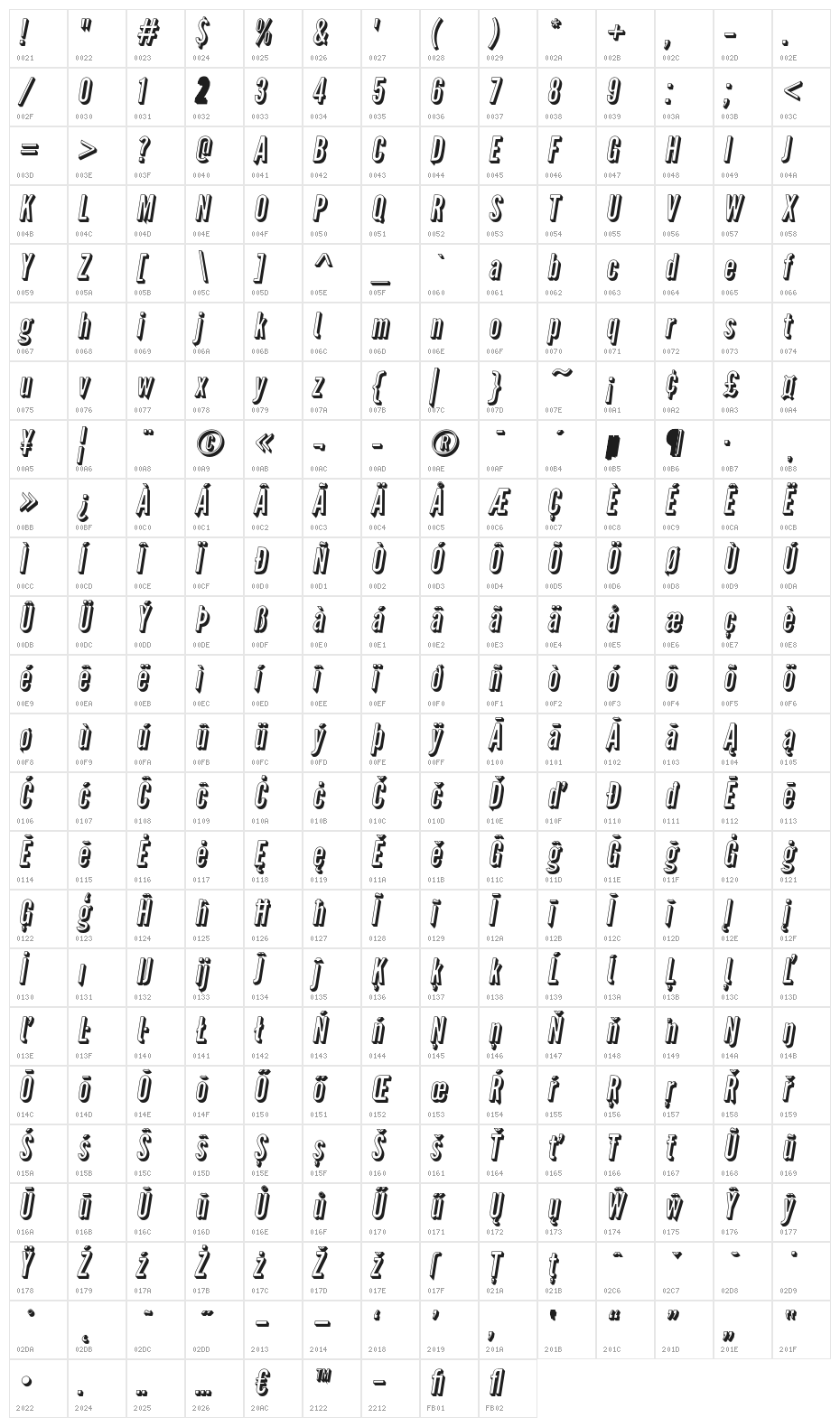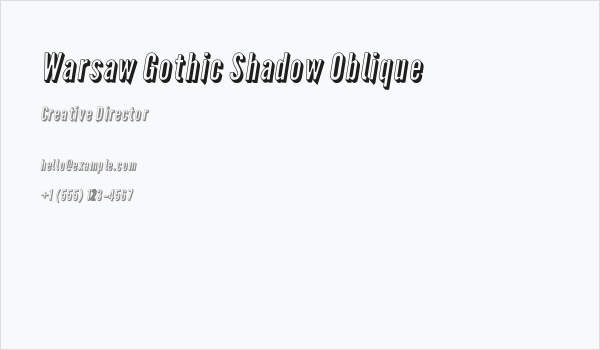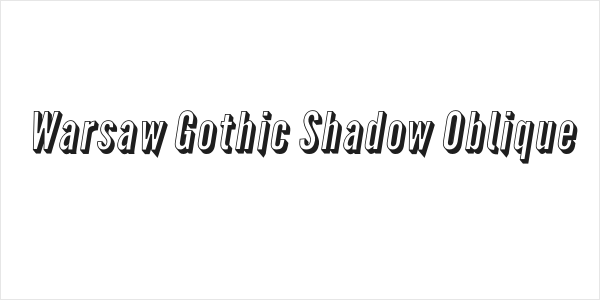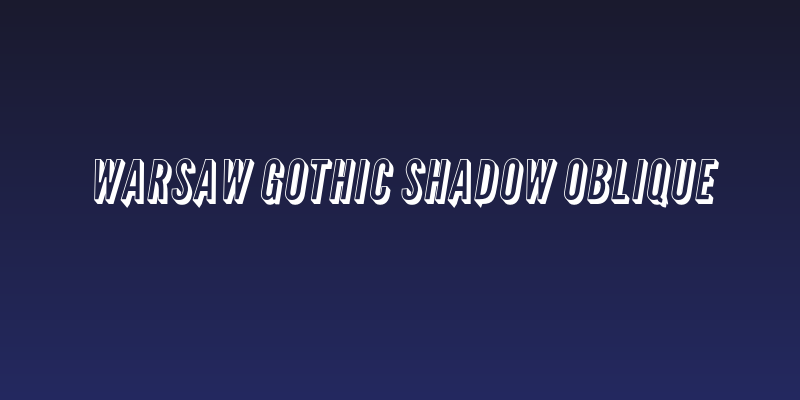
Warsaw Gothic Shadow Oblique Font
Warsaw Gothic Shadow Oblique Description
This font features a bold, dynamic style with a distinctive shadow effect that gives it a three-dimensional appearance. The letters are slightly slanted, adding an oblique touch that enhances its modern and energetic feel. The uppercase and lowercase characters maintain a consistent width, while the numbers and special characters follow the same stylistic approach. The shadow effect is prominent, creating a sense of depth and movement. This font is ideal for making a strong visual impact, suitable for headlines, posters, and branding projects that require a bold statement.
| Proposed Projects | Perfect for eye-catching headlines, posters, branding, and advertising materials. |